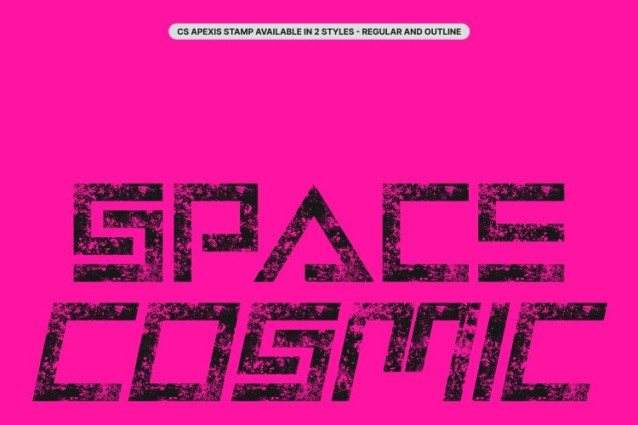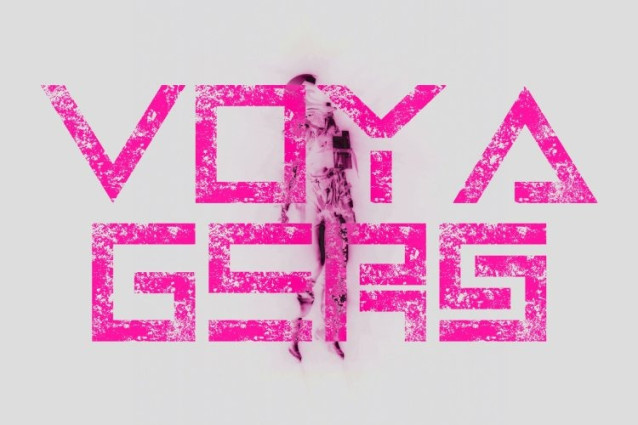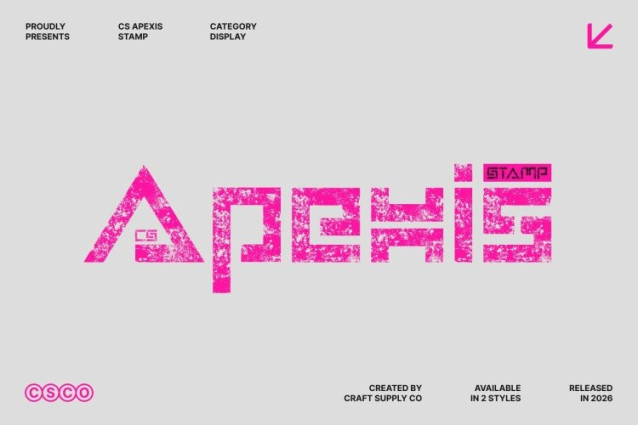
CS Apexis Stamp Font
CS Apexis Stamp Font This is a modern display font rooted in futuristic techno aesthetics and industrial brutalism. Built with sharp structures, clean lines, and bold proportions, it delivers a powerful, forward-looking appearance. The font feels mechanical, confident, and uncompromising perfect for designs that demand innovation and technical strength.
Brutalist Structure with Vintage Stamp Texture
Inspired by brutalist principles, this font features rigid geometry and solid letterforms that convey strength and stability. The added stamp effect introduces worn details and distressed textures, giving the font a vintage, old-design character. This artistic texture softens the rigid forms while adding depth, authenticity, and a raw industrial edge.
Clean Precision Meets Aged Industrial Character
Precision remains at the heart of this font. Its clean edges and controlled spacing ensure clarity and legibility, even in complex layouts. At the same time, the stamped texture creates a contrast between futuristic precision and aged print aesthetics, resulting in a font that feels both advanced and timeless.
Built for Bold, Experimental, and Tech-Driven Projects
This font is designed for projects that push creative boundaries technology branding, sci-fi visuals, gaming titles, posters, digital interfaces, and experimental layouts. Its fusion of industrial power, modern techno energy, and vintage stamp texture transforms typography into a bold visual statement that feels strong, expressive, and unmistakably distinctive.